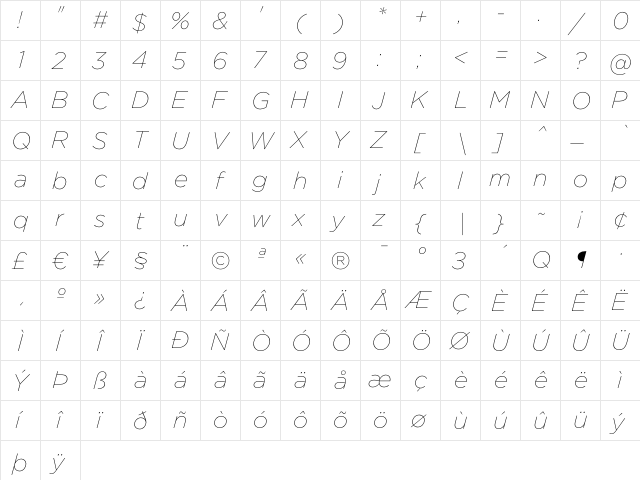
Gotham ThinItalic Font Preview
Design Context for Gotham Typeface
Gotham takes a measured approach to typography — its balanced proportions and neutral character make it a reliable workhorse for both digital and print work. Its italic angle brings a sense of urgency and motion to the letterforms. The delicate stroke weight brings airiness and refinement to layouts.
Pro Tip: Try Gotham for annotation and caption copy alongside an upright companion — the contrast in angle creates a dynamic but ordered typographic system.